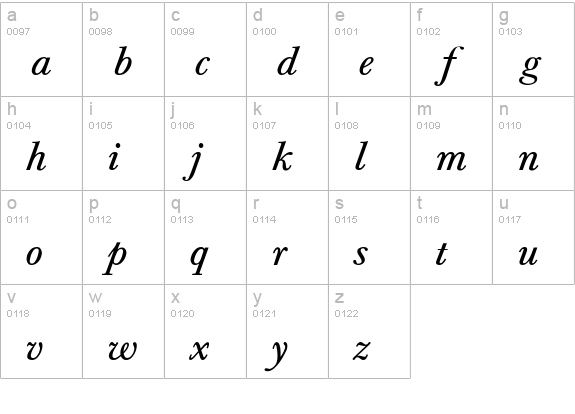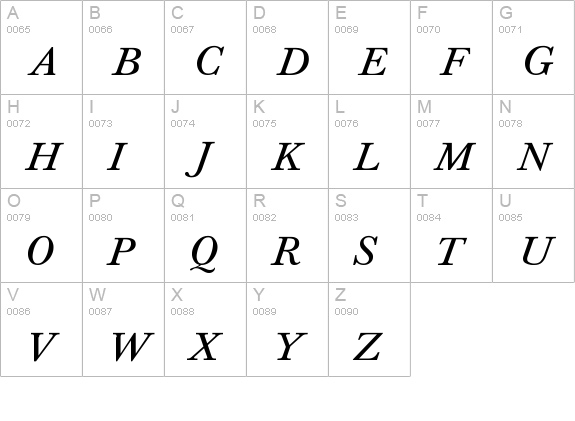
NewBaskervill 7 is an elegant and timeless font that exudes sophistication and class. Its classic serif design is perfect for conveying a sense of tradition and professionalism. The delicate curves and sharp serifs give this font a refined and polished look, making it ideal for a variety of design projects. What sets NewBaskervill 7 apart is that it is available for free download at FontsMarket.com. This means that you can easily access and use this beautiful font without any cost. Whether you are working on a personal project, a business presentation, or any other creative endeavor, NewBaskervill 7 is a versatile and stylish font choice that will elevate your design to the next level. Download this exquisite font today and add a touch of sophistication to your projects.